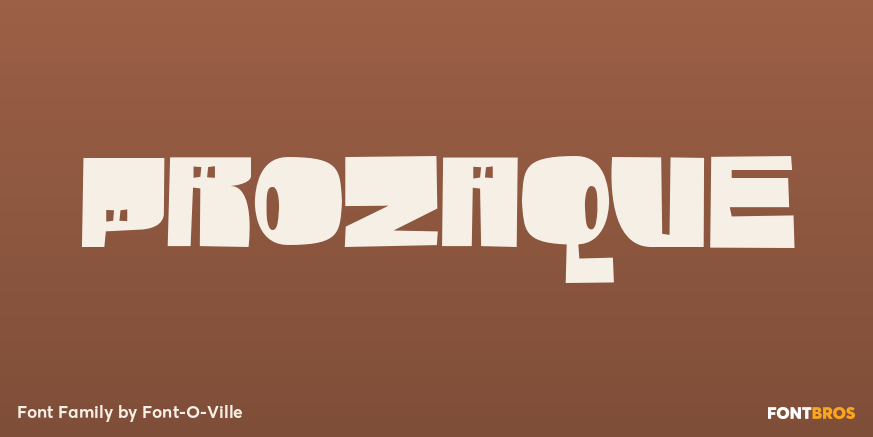
Prozaque
About Prozaque
Meet Prozaque; The world\’s first face with real character! This cute little fellow is guaranteed to make you happy. It\’s an eye-catching informal typeface that even works great at big and not so big sizes. Prozaque comes in OpenType font with lots of…